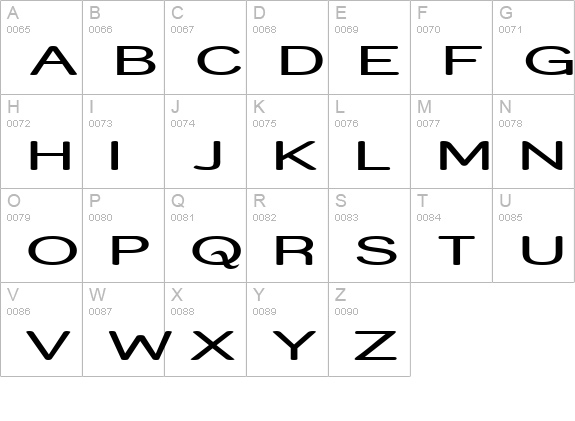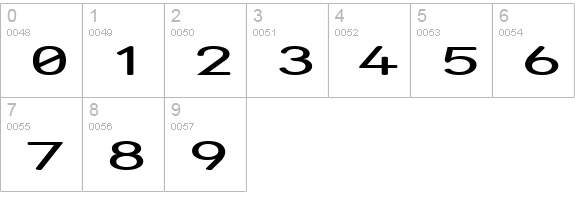
Street - Expanded Font Details
Street - Expanded is a distinctive, extended-width variant in the Street typeface family \xE2\x80\x94 well suited to design and typography projects.
Street - Expanded is a bold and modern display font that commands attention with its strong presence. Perfect for headlines, posters, and branding projects, this font features a unique expanded style that adds a contemporary edge to any design. With its clean lines and sharp angles, Street - Expanded exudes confidence and sophistication. What sets Street - Expanded apart is not only its striking appearance but also the fact that it is available for free download at FontsMarket.com. This means that you can easily incorporate this eye-catching font into your projects without any cost, making it a valuable addition to your design toolkit. Embrace the urban vibes and dynamic energy of Street - Expanded to make a statement in your next creative endeavor.